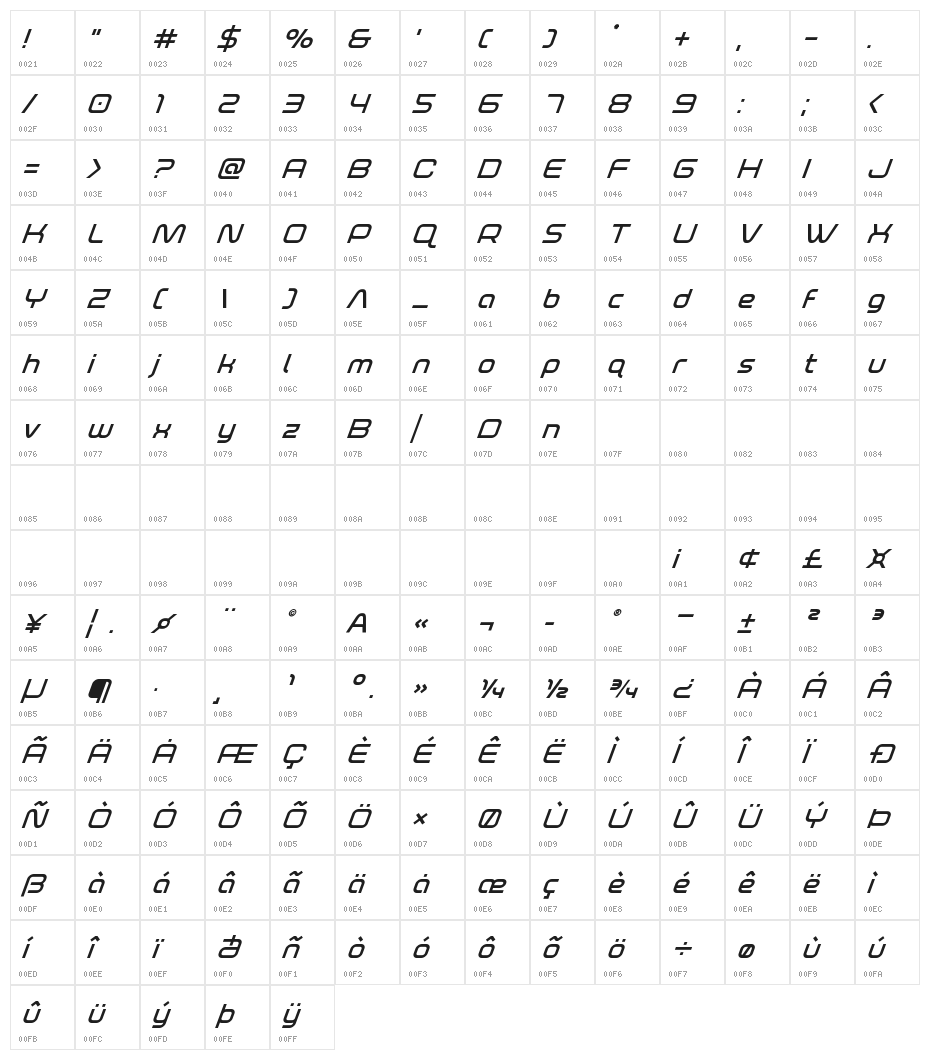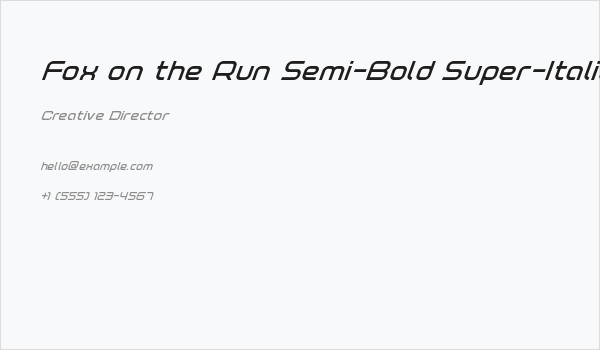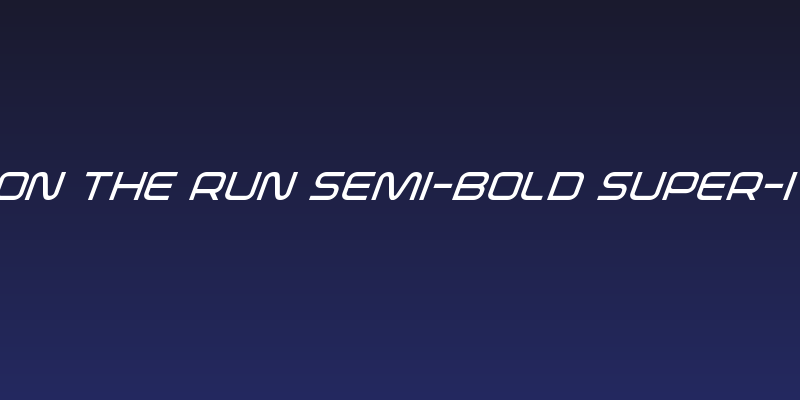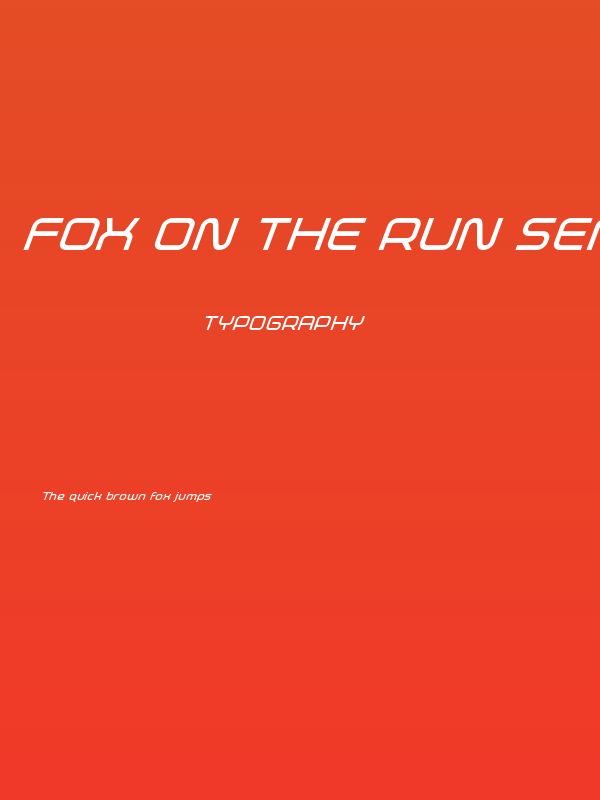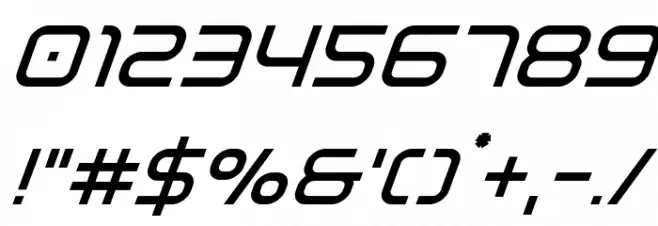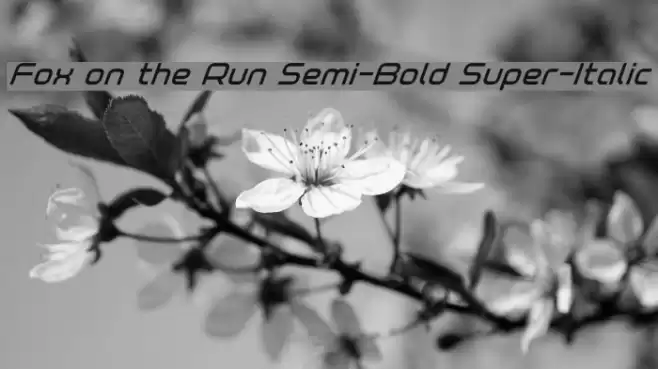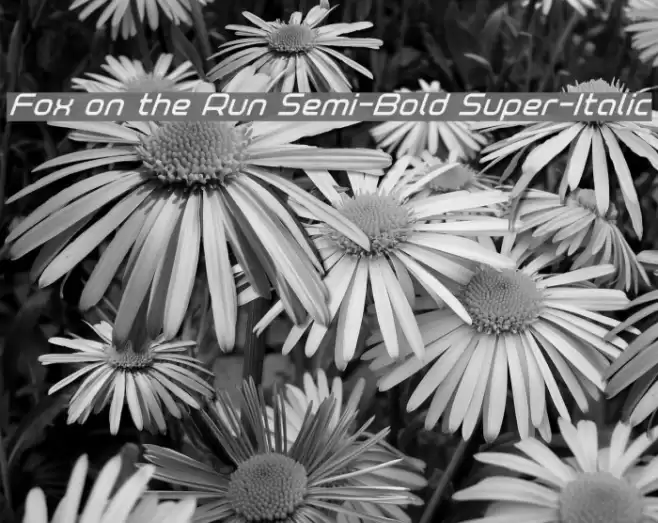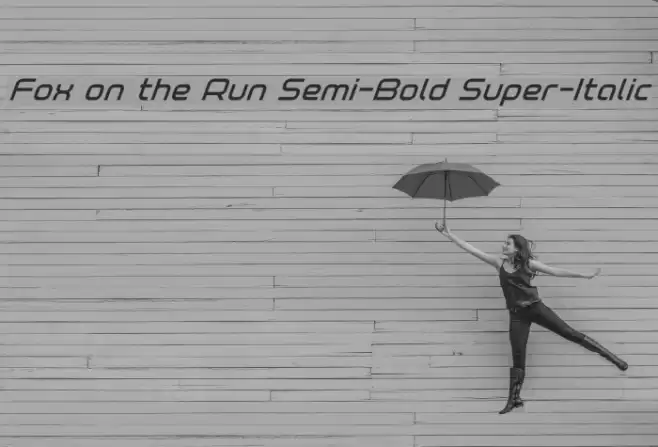
Fox on the Run Semi-Bold Super-Italic Font
Fox on the Run Semi-Bold Super-Italic Description
This font features a sleek, modern design with a semi-bold weight and a pronounced italic slant. The characters are slightly condensed, giving it a compact appearance while maintaining readability. The strokes are consistent in thickness, providing a uniform look across all characters. The overall style is contemporary, with a hint of futurism, making it suitable for dynamic and energetic designs. The font includes a full set of uppercase and lowercase letters, numbers, and a variety of special characters, ensuring versatility for different types of projects.
| Proposed Projects | Ideal for sports branding, tech company logos, dynamic posters, and modern web design. |